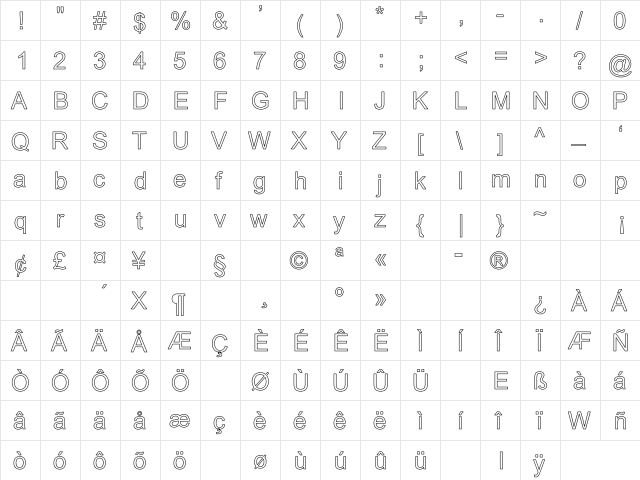
Dixon Hollow Regular
Design Context for Dixon Hollow Typeface
Dixon Hollow takes a measured approach to typography — its balanced proportions and neutral character make it a reliable workhorse for both digital and print work.